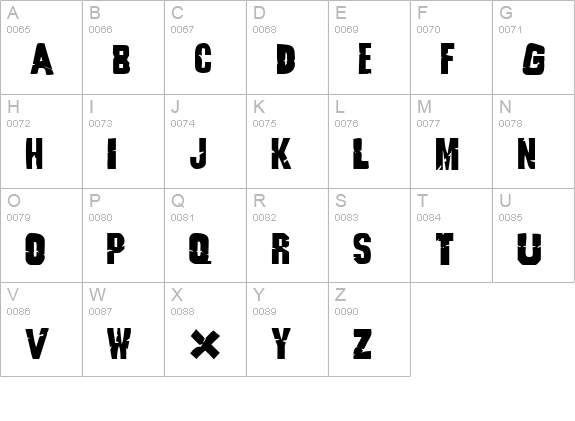
Godzilla Font Details
Introducing Godzilla font, a powerful and dynamic typeface that commands attention with its bold and imposing presence. Inspired by the legendary monster itself, Godzilla font is perfect for projects that require a larger-than-life aesthetic. This one-of-a-kind font features sharp edges and a strong, sturdy design that exudes strength and dominance. Whether you're creating posters, banners, or headlines, Godzilla font will make a statement and leave a lasting impression on your audience. Best of all, Godzilla font is available for free download at FontsMarket.com. So unleash the power of this incredible typeface and bring your designs to life with the mighty presence of Godzilla font.